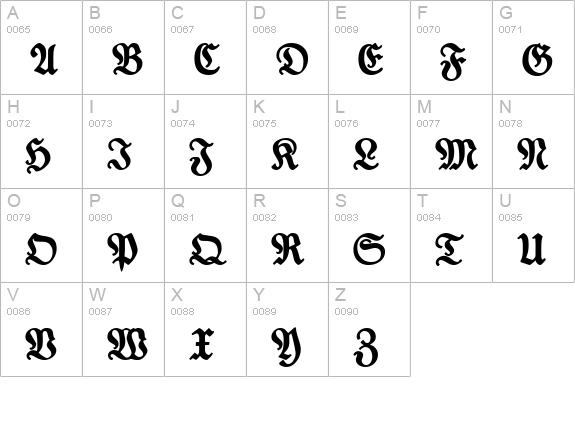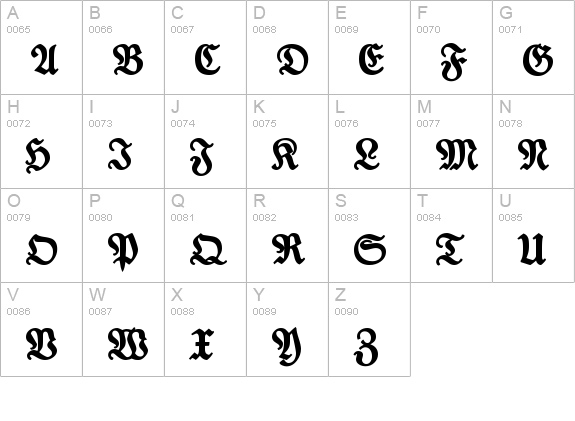
TypographerFraktur Bold Font Details
TypographerFraktur Bold is a strong, high-contrast variant in the TypographerFraktur typeface family \xE2\x80\x94 well suited to headlines, attention-grabbing titles, and strong calls-to-action.
Introducing TypographerFraktur Bold, a captivating and expressive font that exudes a sense of elegance and sophistication. With its bold and intricate design, this typeface stands out from the crowd, instantly catching the eye and commanding attention. TypographerFraktur Bold takes inspiration from traditional Fraktur typography, characterized by its distinguished and ornate appearance. Each letter is meticulously crafted, showcasing sharp angles, intricate curves, and an overall captivating visual appeal. This font is perfect for those seeking to add a touch of timeless charm to their designs. Whether you are creating invitations, logos, headlines, or any other project that requires a touch of elegance, TypographerFraktur Bold is sure to deliver. One of the best features of TypographerFraktur Bold is that it is freely available to download at FontsMarket.com. This means that you can easily access and incorporate this stunning font into your creative endeavors without any hassle. The ease of availability ensures that you can unlock its full potential and explore the countless possibilities it offers. With TypographerFraktur Bold, you have the freedom to unleash your creativity and bring your ideas to life. Its bold and distinctive nature allows you to make a statement and leave a lasting impression on your audience. Don't miss out on the opportunity to enhance your designs with TypographerFraktur Bold. Download it now from FontsMarket.com and experience the unparalleled beauty and versatility of this remarkable font. Let TypographerFraktur Bold be the key to elevating your design projects to new heights of excellence.